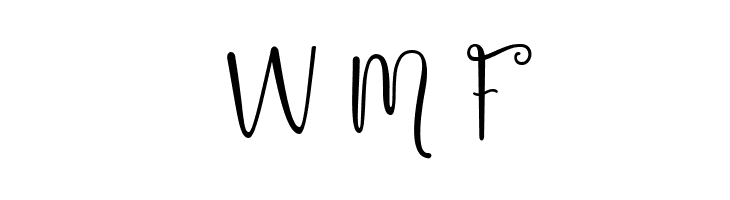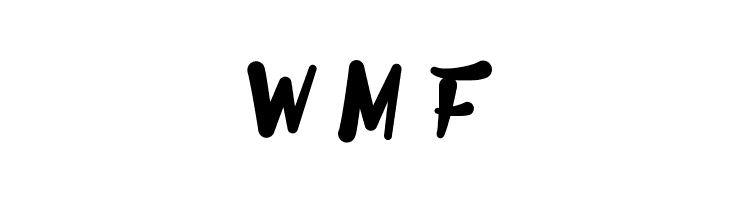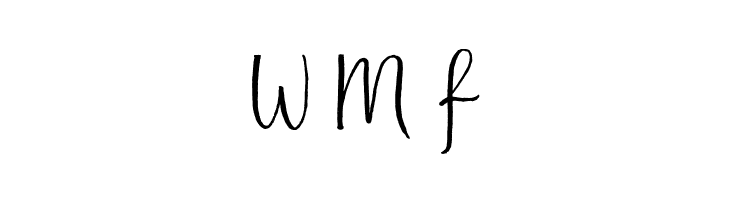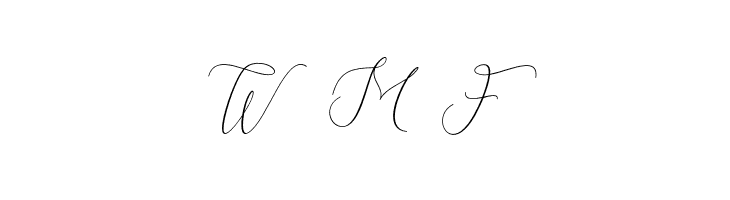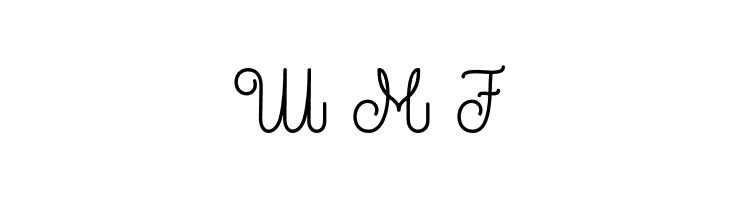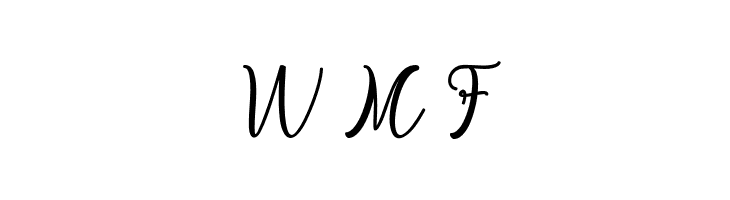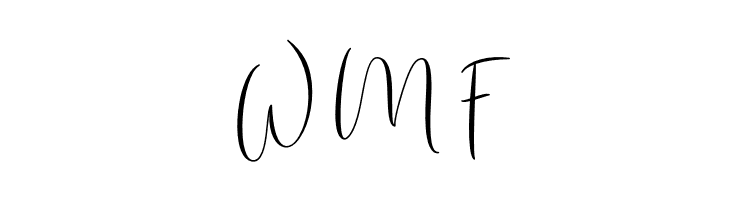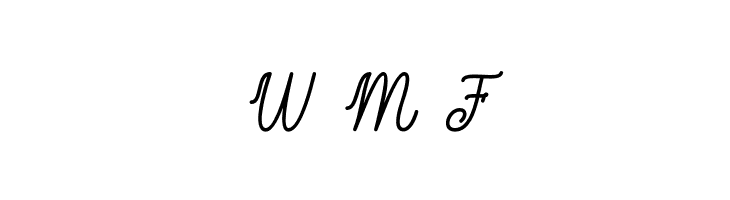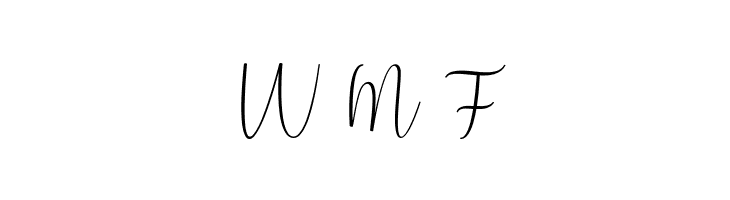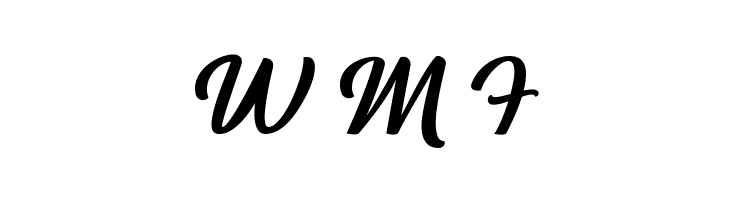
A playful, handwritten font with elongated, curly characters.
A playful, bold handwritten font with a smooth, flowing style.
A playful, rounded font with bold, smooth curves and consistent thickness.
A playful, bold, hand-drawn font with a casual and friendly style.
An elegant script font with flowing, interconnected letters and ornate flourishes.
A playful, artistic script font with fluid, dynamic strokes.
A flowing, cursive font with a handwritten, artistic style.
An elegant script font with flowing, ornate cursive letters and high contrast strokes.
A playful, decorative script font with looping, interconnected strokes.
A stylish and elegant script font with flowing, connected letterforms.
A sophisticated script font with elegant, flowing cursive strokes.
An elegant, flowing script font with graceful, cursive letterforms.
A flowing, cursive script font with elegant, interconnected characters.
A dynamic and elegant script font with flowing, cursive letterforms.
An elegant, flowing script font with ornate uppercase and graceful lowercase letters.
A bold, flowing script font with elegant, connected letterforms.
A lively and elegant script font with fluid, cursive strokes.
An elegant script font with intricate swashes and decorative flourishes.
An elegant script font with flowing, cursive strokes and refined details.
An elegant, flowing script font with whimsical loops and dynamic forms.
An elegant script font with flowing, ornate swashes and high contrast strokes.
An elegant script font with flowing, interconnected letters and high contrast strokes.
An elegant script font with intricate swirls and decorative flourishes.
An elegant, flowing script font with ornate uppercase and smooth lowercase letters.
An elegant script font with flowing, cursive strokes and artistic flair.
An elegant and flowing script font with graceful curves and loops.
A bold, dynamic script font with elegant cursive forms and decorative swashes.
An elegant, flowing script font with graceful curves and a consistent slant.
A playful and elegant script font with flowing, cursive letters.
A flowing, cursive script font with elegant, connected strokes.
An elegant script font with flowing, decorative cursive letters.
An elegant script font with flowing, cursive letterforms and sophisticated style.
A modern, elegant script font with graceful curves and fluid connections.
An elegant and sophisticated cursive script with decorative flourishes.